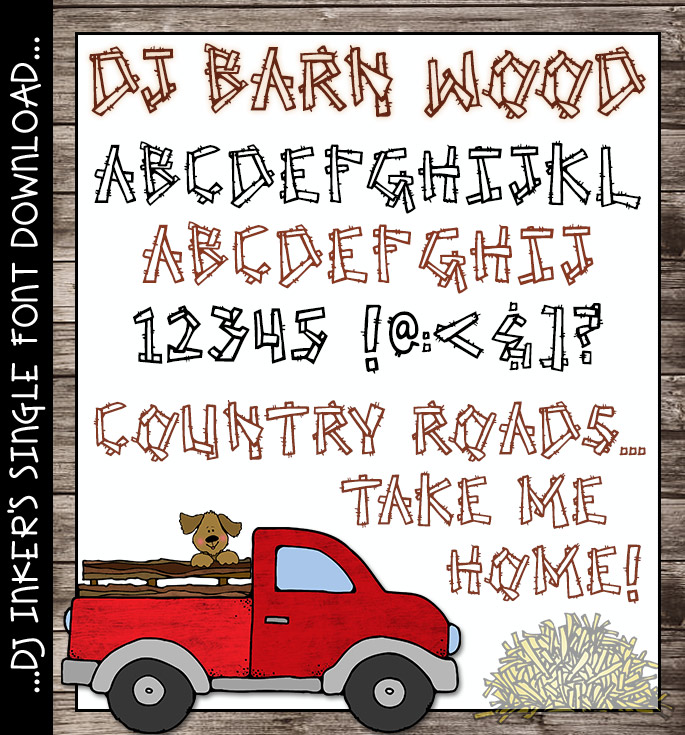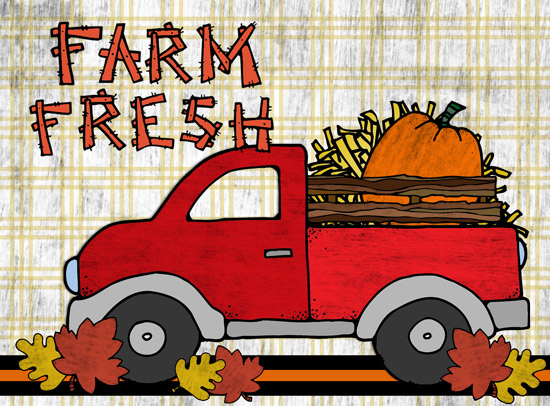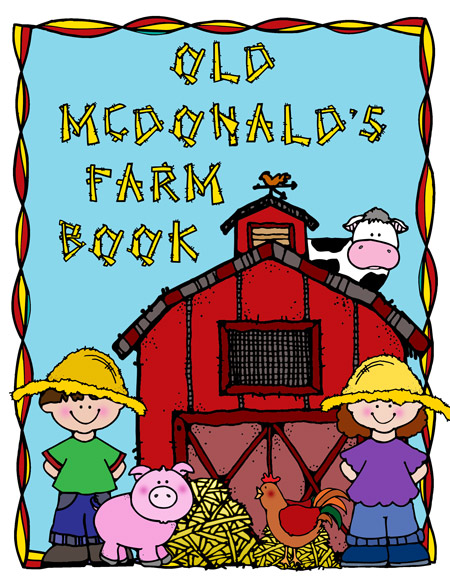
Give your text some country charm with DJ Inkers' rustic Barn Wood font
DJ Barn Wood Font Download
DJ Barn Wood font is great for adding country charm to your headlines and creations. This rustic hand drawn lettering can be used for words about the farm, camping, cowboys, dads, tools and country livin'. Yeehaw!
Note: This font has been updated & revised from DJ Plank on Fontastic Too.